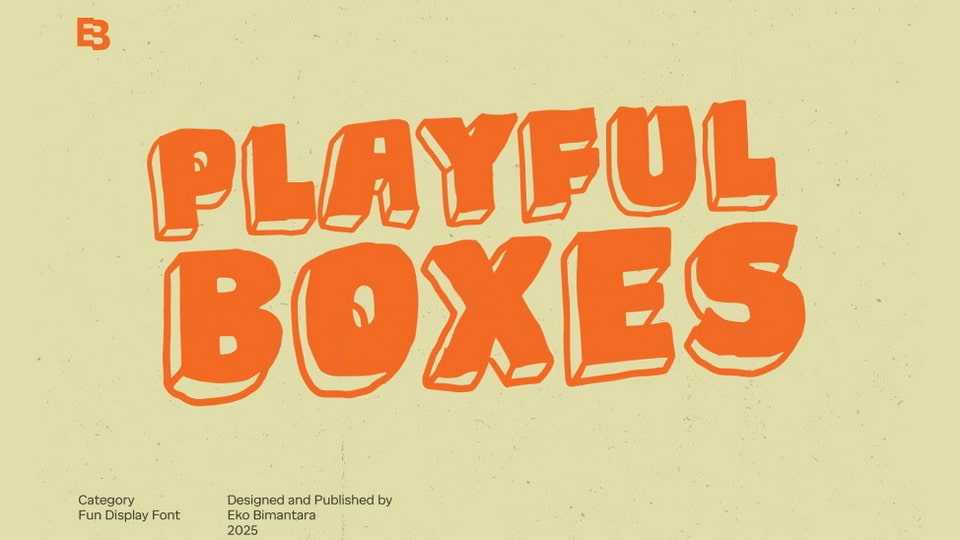
Download Playful Boxes font, a chunky, fun display typeface bursting with energy and personality with its bold hand-drawn forms and quirky 3D block shadows.